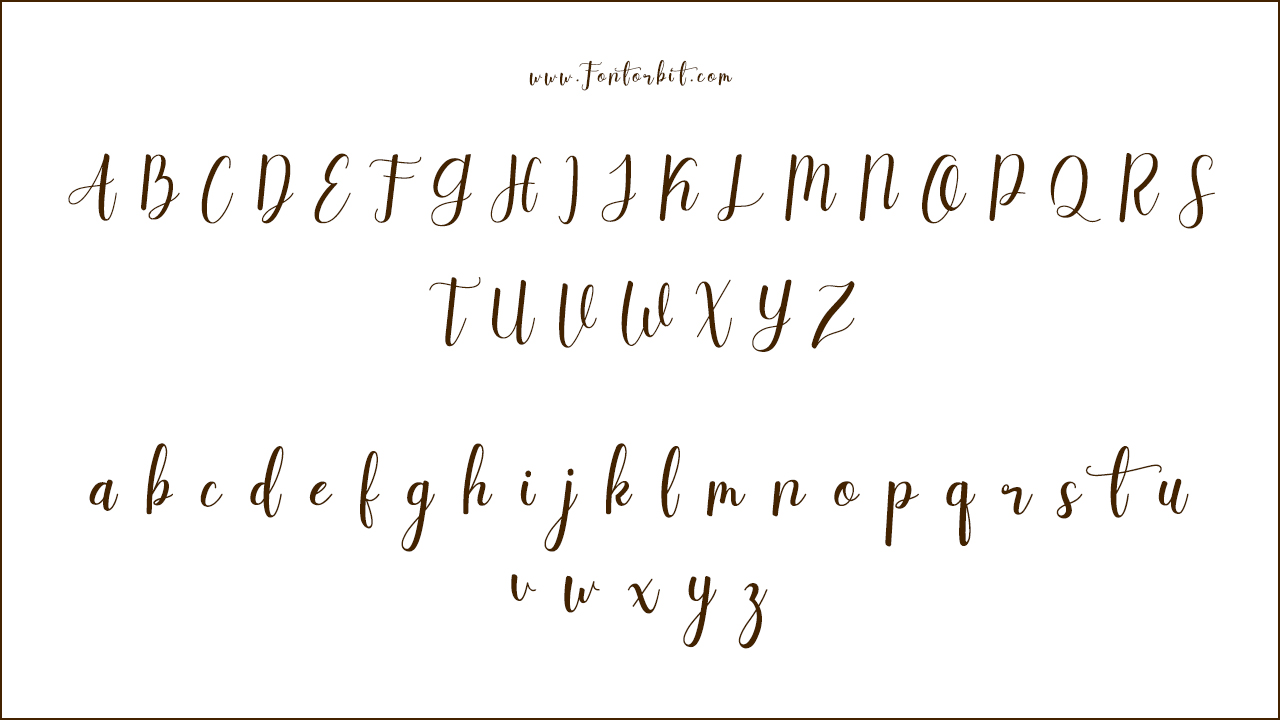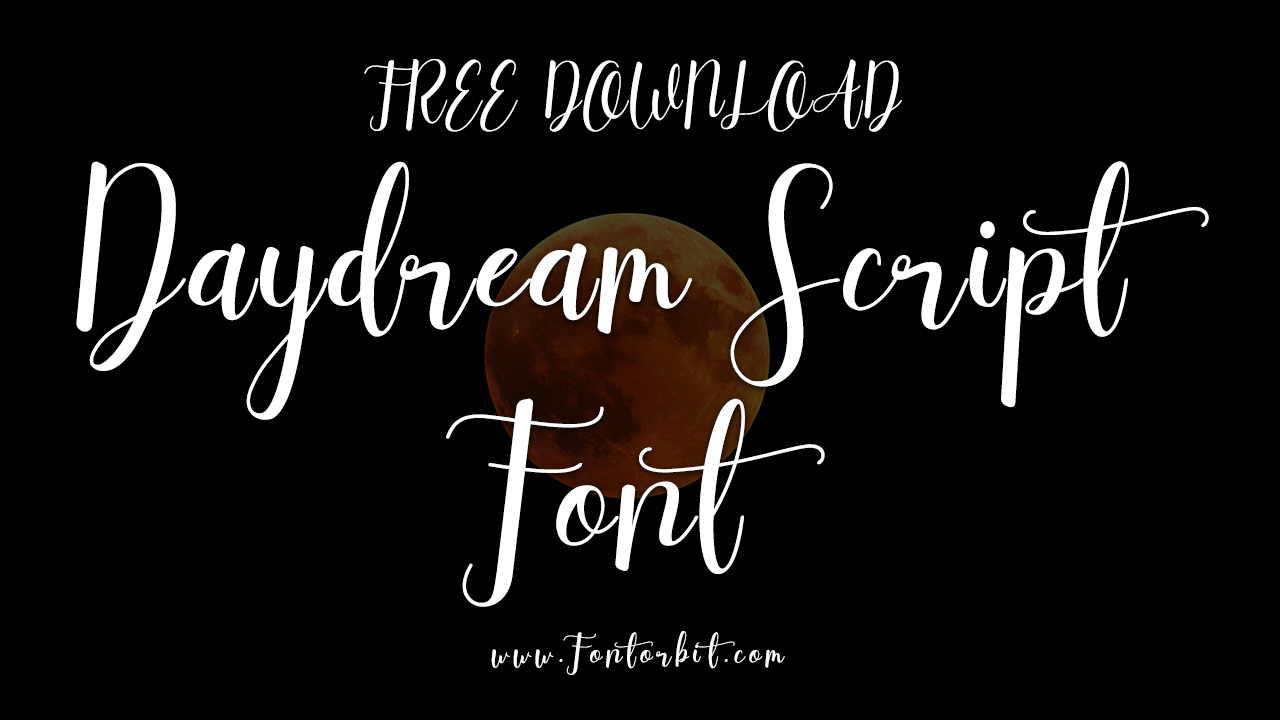
Daydream Script font is a stylish and contemporary calligraphy typeface designed by Alice Whales. With its elegant, flowing lines and distinct handwriting-inspired style, Daydream Script brings a touch of sophistication and personal charm to any project.
The font seamlessly blends the art of brush lettering with traditional handwriting, making it an excellent choice for both formal and creative applications.
Daydream Script Font Family
- Daydream Script Regular
Daydream Script belongs to the script category and offers a fresh, modern aesthetic with a hint of classic elegance. While the font primarily focuses on a single style to maintain its unique identity, it is characterized by its dancing baseline, which gives it a playful yet graceful appearance.
The font features a comprehensive character set, including uppercase and lowercase letters, numbers, basic punctuation, currency symbols, and a variety of special characters, enhancing its versatility. Though not a large font family with multiple weights and styles, Daydream Script’s uniqueness lies in its distinctive brush-lettered style.
Daydream Script is well-suited for a variety of design projects, particularly those that benefit from a personal and elegant touch. Its brush-lettering style makes it a great choice for:
- Personal Branding
- Wedding Invitations
- Greeting Cards
- Signatures
- Quote Posters
- Stamps
Daydream Script is a timeless and elegant typeface that excels in various design contexts. Whether used for digital or print media, this font provides the aesthetic qualities needed to bring a creative vision to life. Its flowing lines and calligraphic style make it a go-to choice for designers seeking a modern yet personal look.